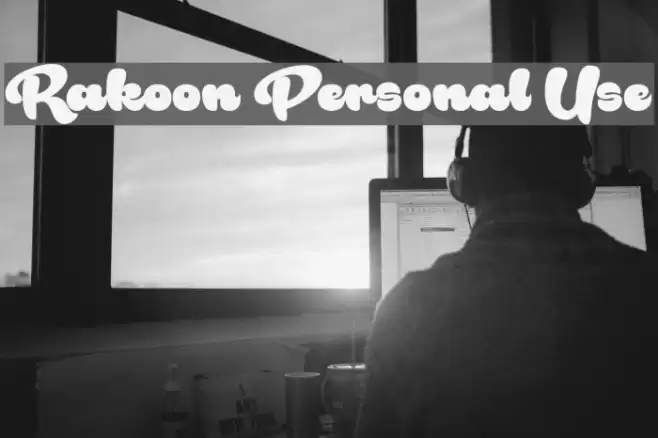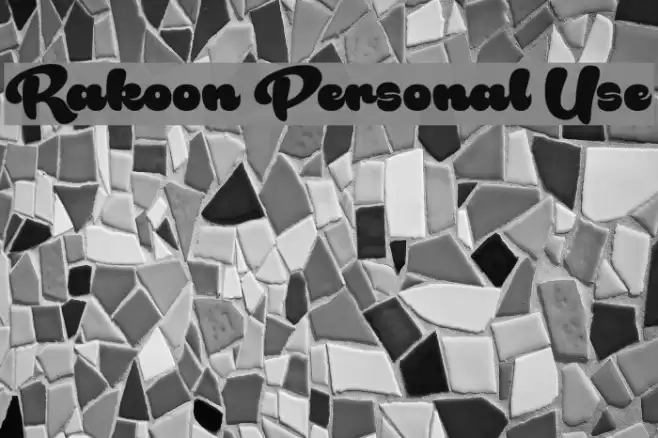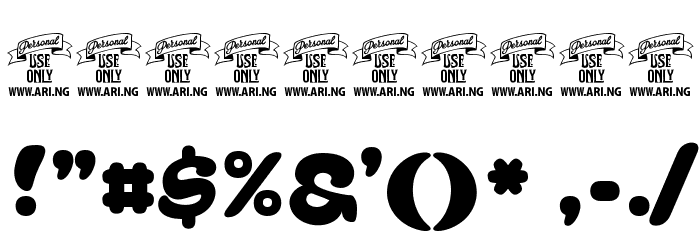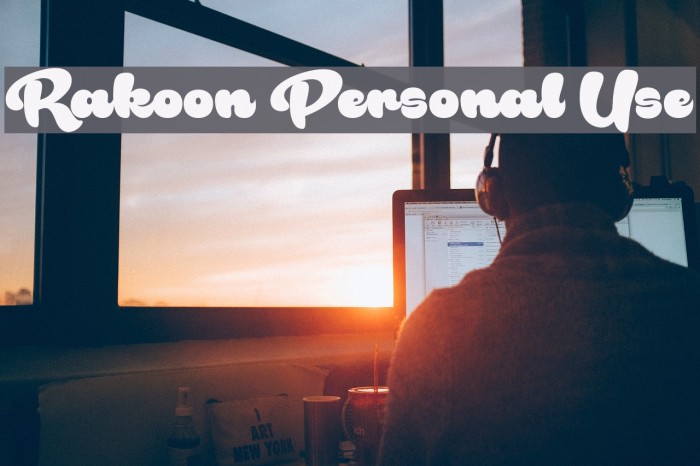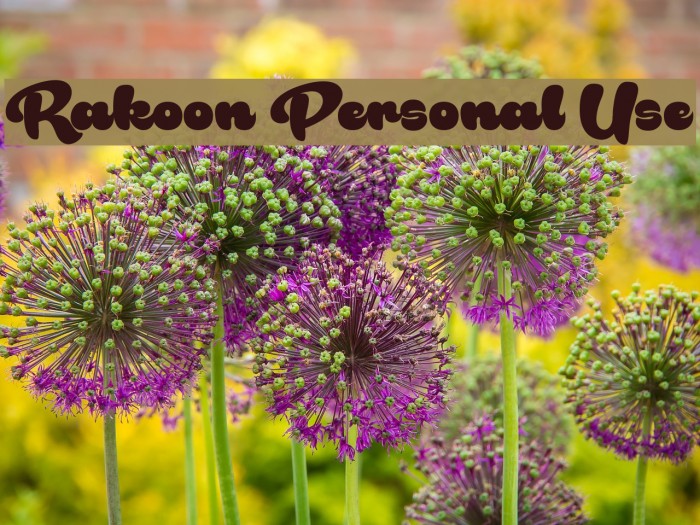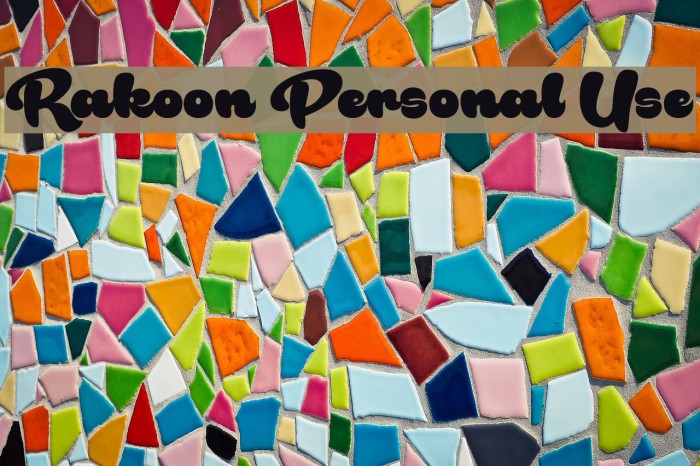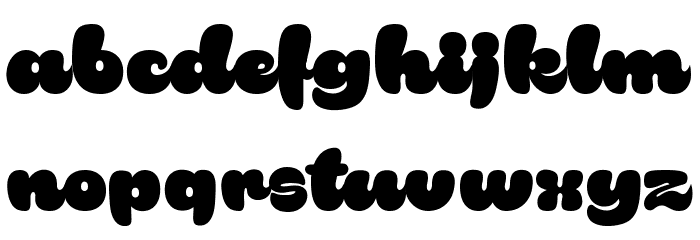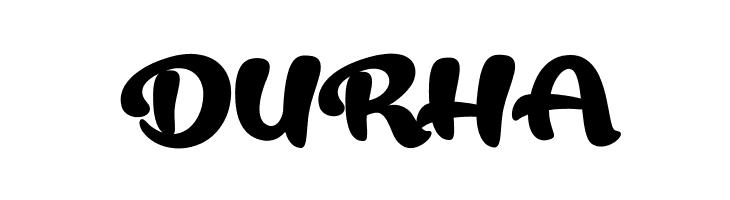
Rakoon Personal Use Font
Rakoon Personal Use Description
This font features a bold and playful style with thick, rounded strokes that give it a bubbly and friendly appearance. The uppercase and lowercase letters maintain a consistent weight, creating a harmonious look across the alphabet. The characters are closely spaced, enhancing the compact and cohesive feel of the font. The special characters are designed to match the playful aesthetic, making them suitable for creative and informal contexts. This font's unique style makes it ideal for projects that require a fun and engaging visual element.
A bold, playful font with thick, rounded strokes and a friendly appearance from Fancy fonts.
- Proposed Projects: Ideal for children's books, playful branding, party invitations, and creative posters.
- Character Spacing: Tight
- Overall Style: Playful